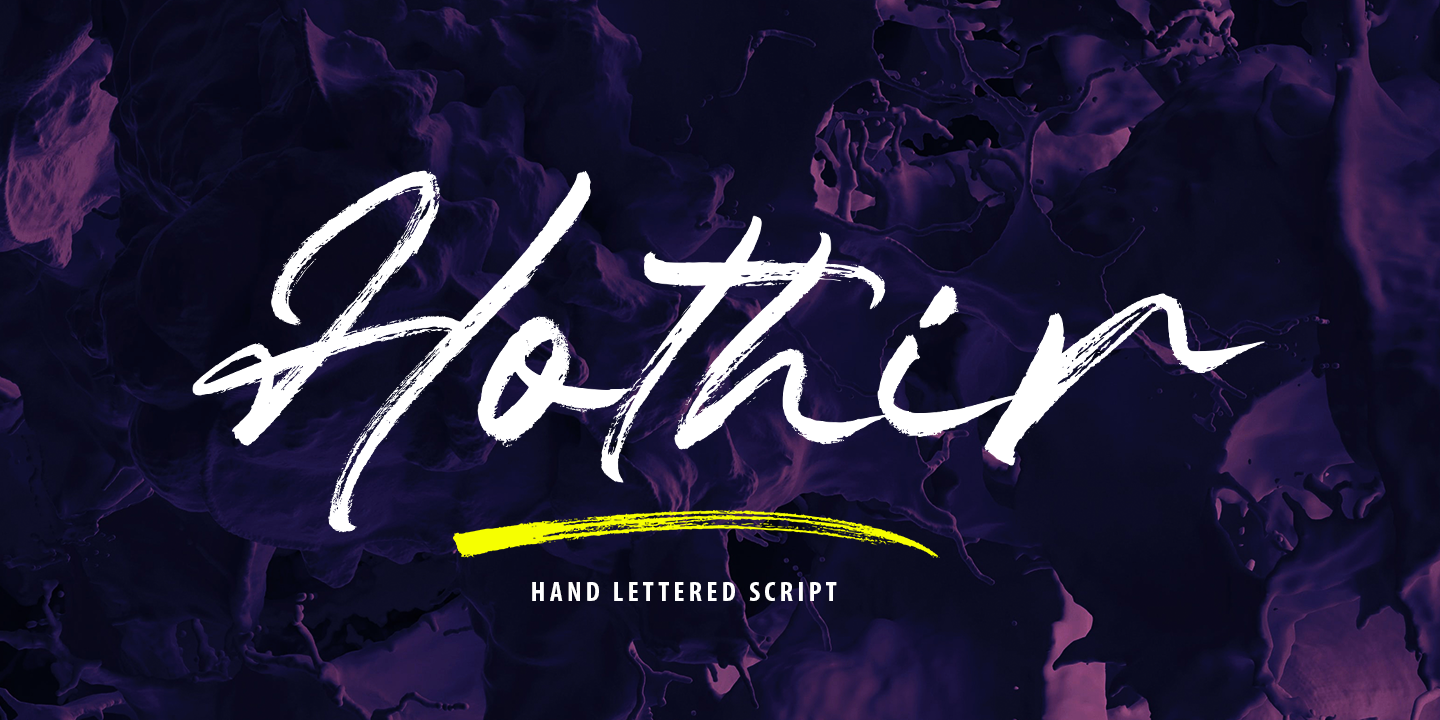
Hothir Font is perfect for desert adventure tour branding, Middle Eastern restaurant communications, luxury desert resort marketing, archaeological expedition materials, ancient civilization museum signage, nomadic travel company promotions, desert photography studio campaigns, and mystical adventure gaming interfaces. This scorching typeface excels in applications where desert heat, ancient mystique, and arid landscape beauty are essential for connecting with audiences who appreciate the raw power of desert environments and the timeless allure of sand-swept adventures.
What makes Hothir Font so exciting is its intense embodiment of desert heat and ancient mystery that perfectly captures the essence of scorching sands and the mystical power of arid landscapes where civilizations once thrived. The font features weathered, heat-distorted letterforms with desert characteristics that evoke sun-bleached stone inscriptions and wind-carved monuments. Its intense character conveys endurance, mystery, and primal power - essential qualities for brands serving adventure markets, cultural tourism, and audiences who appreciate desert landscapes, ancient history, and the mesmerizing beauty of harsh environments where only the strongest survive and ancient secrets lie buried beneath shifting sands.
The Hothir Font family includes multiple scorching weights and desert-inspired variations that enhance its arid appeal. Some versions feature sand-blasted textures and heat distortion effects that simulate desert weathering and ancient erosion, while others provide cleaner variants that maintain the font's intense character with enhanced readability for professional adventure tourism applications and commercial desert experience communications.
Whether you're creating branding for desert adventures, designing materials for Middle Eastern cultural experiences, or developing marketing campaigns for arid landscape tourism, Hothir Font Free Download provides the desert authority your project demands. The font's scorching character makes it particularly effective for brands targeting adventure enthusiasts who appreciate extreme environments, ancient mysteries, and the powerful beauty of desert landscapes and arid wilderness experiences.
Blaze through the desert with Hothir Font and scorch your brand communications with typography that embodies the intense heat of desert power and ancient mystery.